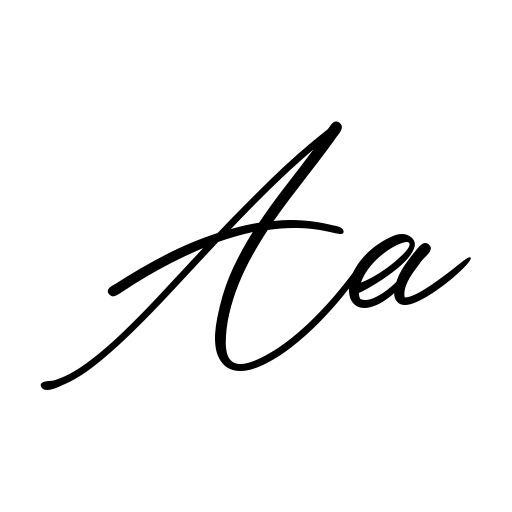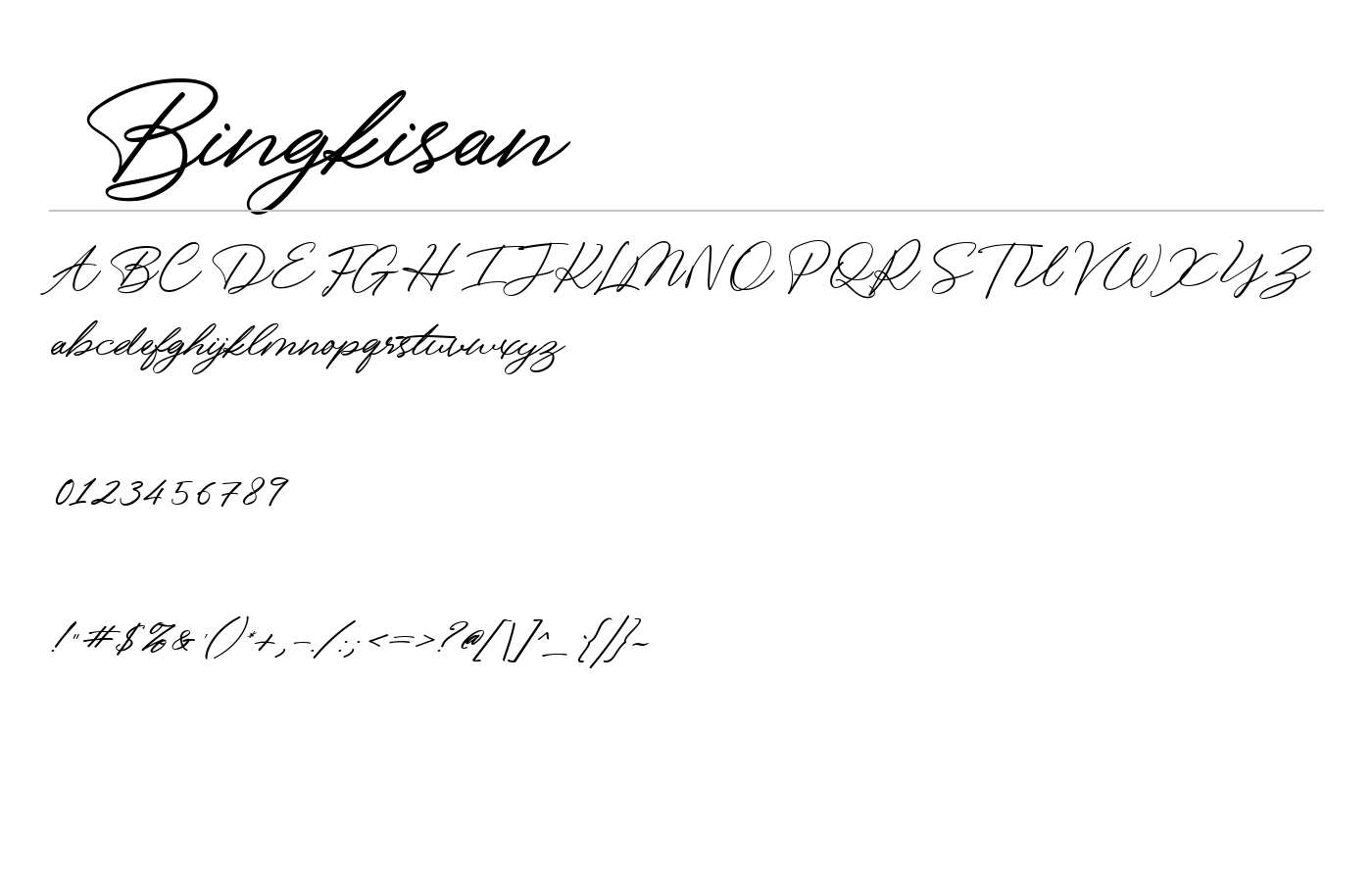
Bingkisan is a delicate and elegant script font characterized by its fluid, handwritten style with fine stroke contrast and graceful curves. Its slender letterforms and airy spacing give it a personal, sophisticated feel, making it ideal for invitations, branding, and any design seeking a touch of refined, artistic flair. This font works beautifully where a subtle, stylish script can add warmth and elegance without overwhelming the design.
Bingkisan Font
About Bingkisan Font
| Font family | Bingkisan Font |
| Designer | Rinaldo Hasibuan |